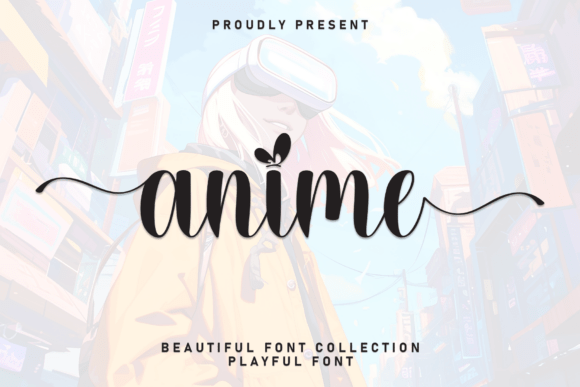
Unleashing Your Creative Expression with Anime Font
Have you ever stared at a blank page, pencil in hand, waiting for inspiration to strike? For many of us, the blank slate can be intimidating, but what if you could tap into a world of creativity and bring your unique vision to life? This is where the Anime Font comes in – a special collection of fonts designed to add an extra layer of style and personality to your work.
Perfect for designers, artists, and anyone looking to add a touch of whimsy to their projects, the Anime Font is a versatile tool that can be used in a variety of applications, from wall displays and wedding invitations to social media logos and product packaging.
Anime Font Key Features
- Font Family: Anime Font is a unique, hand-drawn font family designed to resemble the style of Japanese anime and manga.
- Unique Characteristics: Anime Font features bold, expressive lines and intricate details, giving it a distinctive anime-inspired look.
Anime Font Review
Overall, I was pretty excited to dive into the Anime Font. As a designer, I’m always on the lookout for unique and eye-catching typography solutions.
- ✨ Unique and playful style that captures the essence of anime and manga
- ✨ Comes in a range of weights and styles to suit different design needs
- ✨ Supports a wide range of languages, making it a great choice for international projects
- ✨ High-quality vector graphics ensure crisp and clear text rendering
- ⚠️ Not ideal for body text, as it can be overwhelming and difficult to read in large quantities
- ⚠️ Some users may find the font too stylized or gimmicky
Overall, I think the Anime Font is a great choice for designers who want to add a touch of personality to their projects. While it may not be the best fit for every design, it’s certainly a unique and eye-catching option. Just be mindful of its limitations and use it thoughtfully to get the best results.
Tips for Getting the Most Out of Anime Font
To get the most out of Anime Font, try the following:
- Use it in combination with bold or italic text for added emphasis.
- Pair Anime Font with other fonts to create a unique and eye-catching design.
Anime Font is commonly used in:
- Graphic design and digital art.
- Social media posts and advertisements.
- Video game and anime-inspired designs.
Alternatives to Anime Font for Designers
Pacifico is a beautiful, elegant script font that is perfect for designs that need a touch of sophistication. It’s ideal for use in wedding invitations, branding, and other designs where a high-end feel is desired. Pacifico has a more refined look compared to Anime Font, which makes it suitable for formal and professional designs.
Great Vibes is a modern script font that is great for creating a fun and energetic vibe. It’s perfect for use in social media graphics, posters, and other designs where a playful feel is desired. Great Vibes has a more casual look compared to Anime Font, making it suitable for informal and creative designs.
Dancing Script is a elegant script font that is perfect for designs that need a touch of luxury. It’s ideal for use in branding, packaging, and other designs where a high-end feel is desired. Dancing Script has a more flowing look compared to Anime Font, making it suitable for designs that require a sense of movement and energy.
Lobster is a fun and playful script font that is perfect for designs that need a touch of whimsy. It’s ideal for use in social media graphics, posters, and other designs where a casual and fun feel is desired. Lobster has a more relaxed look compared to Anime Font, making it suitable for informal and creative designs.